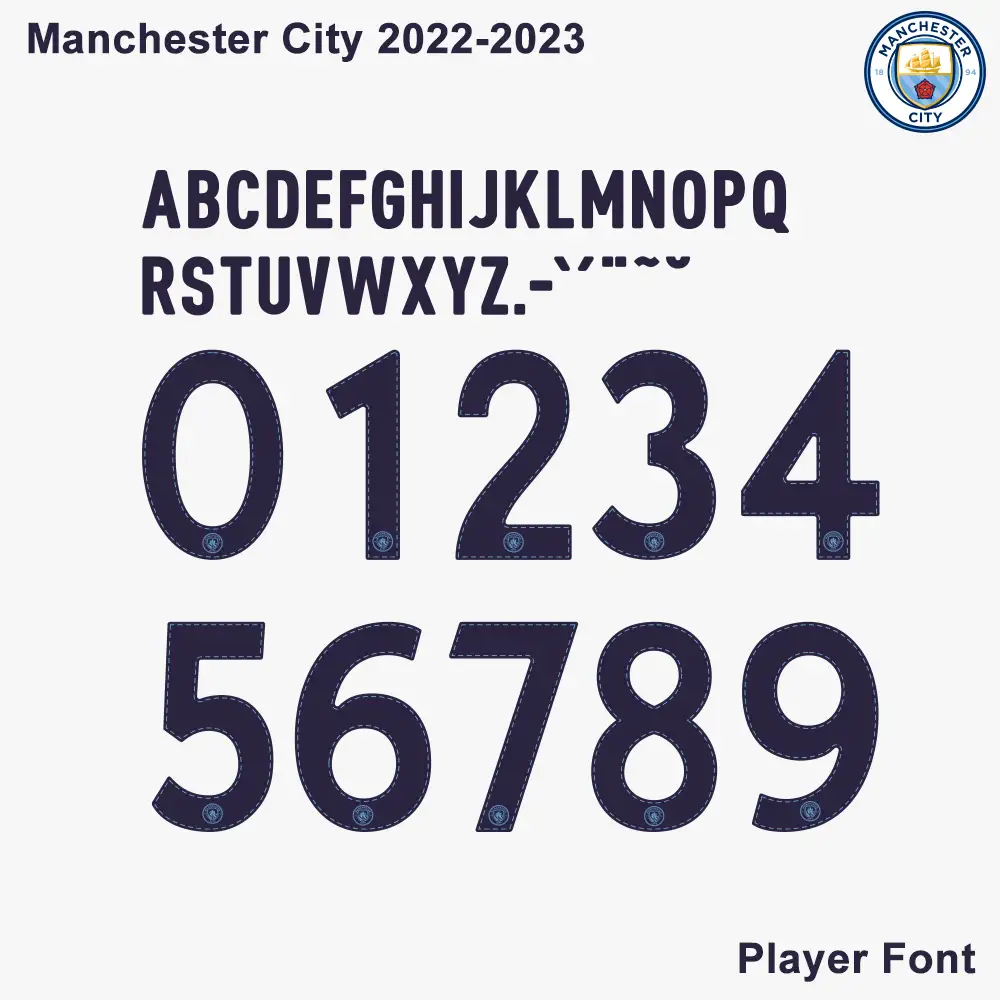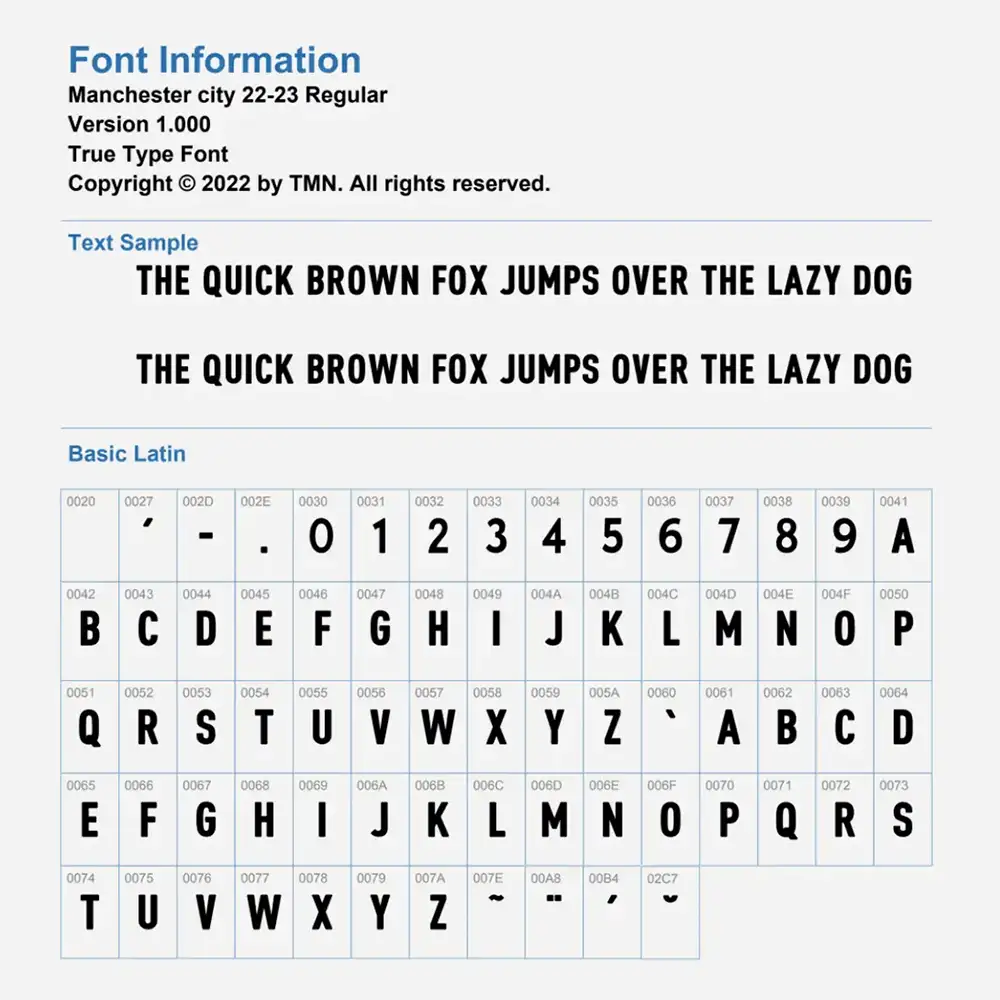
Manchester City 2022-23 Kit Font
The Puma Manchester City typeface is inspired by football’s classic typefaces of the 1960s and 1970s. It is a stylish no-nonsense look, perfectly fitting the classic inspiration of the kit.